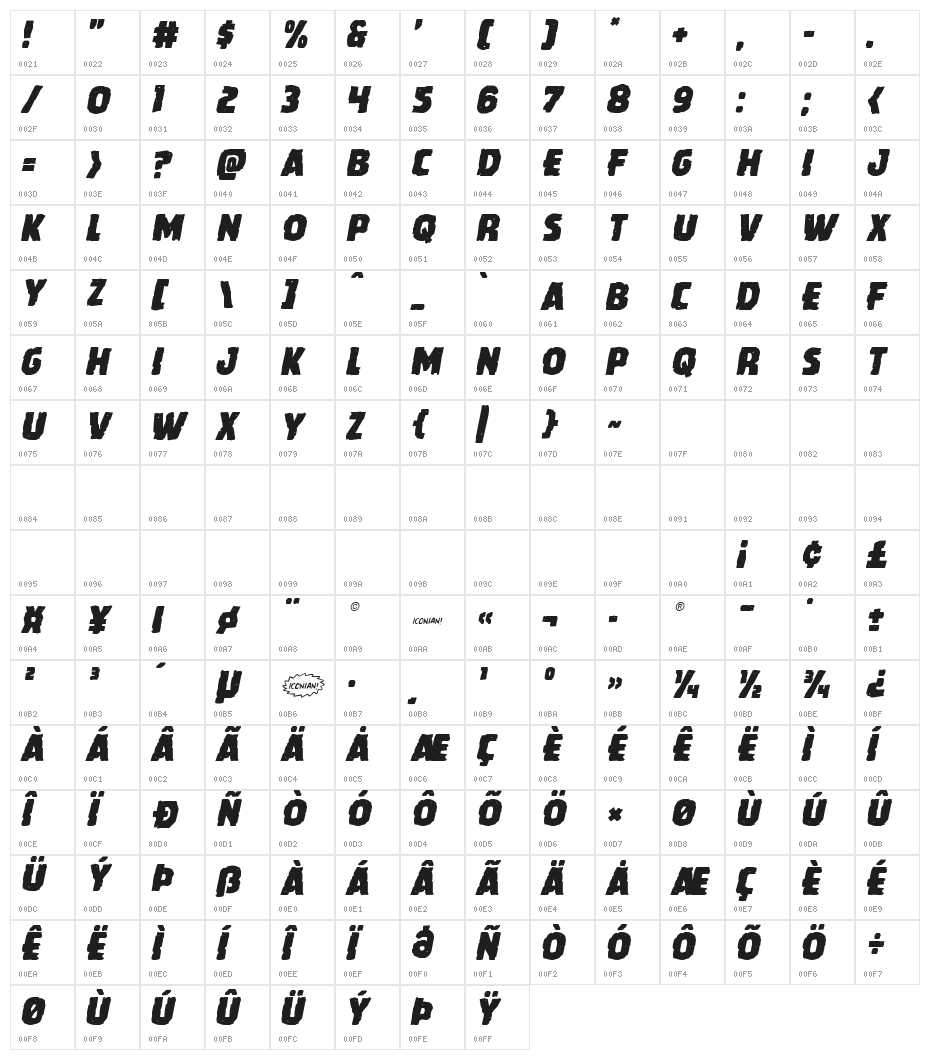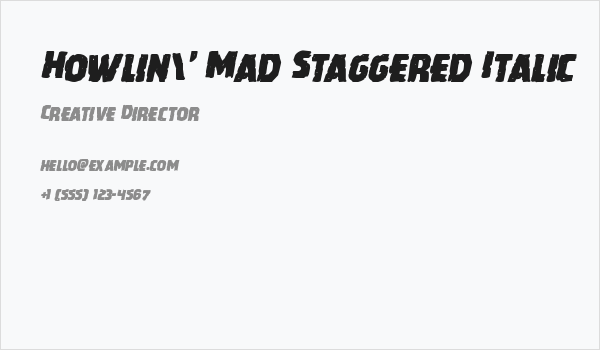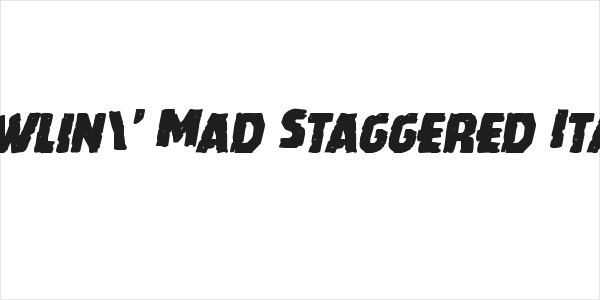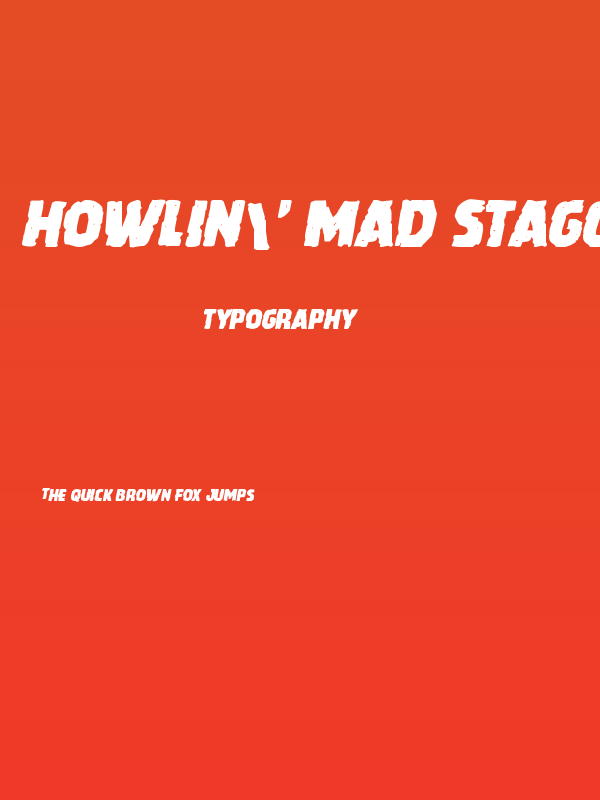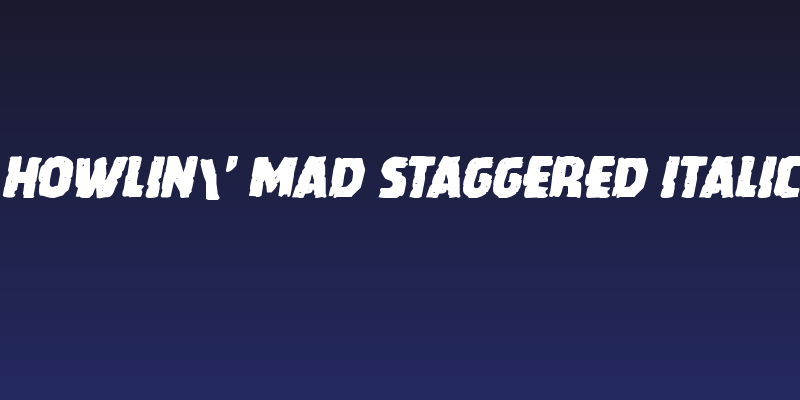
Howlin' Mad Staggered Italic Font
Howlin' Mad Staggered Italic Description
This font features a bold and dynamic style with a staggered, italicized appearance. The characters are heavily weighted, giving them a strong and impactful presence. The edges are rough and irregular, adding a sense of movement and energy. This font is designed to stand out, making it ideal for attention-grabbing headlines or designs that require a bold statement. The uppercase and lowercase letters maintain a consistent style, while the numbers and special characters complement the overall aesthetic. The font's unique style is both modern and edgy, perfect for projects that aim to convey a sense of boldness and creativity.
| Overall Style | Modern, Edgy |
| Proposed Projects | Ideal for posters, album covers, branding, and any design needing a bold, energetic typeface. |